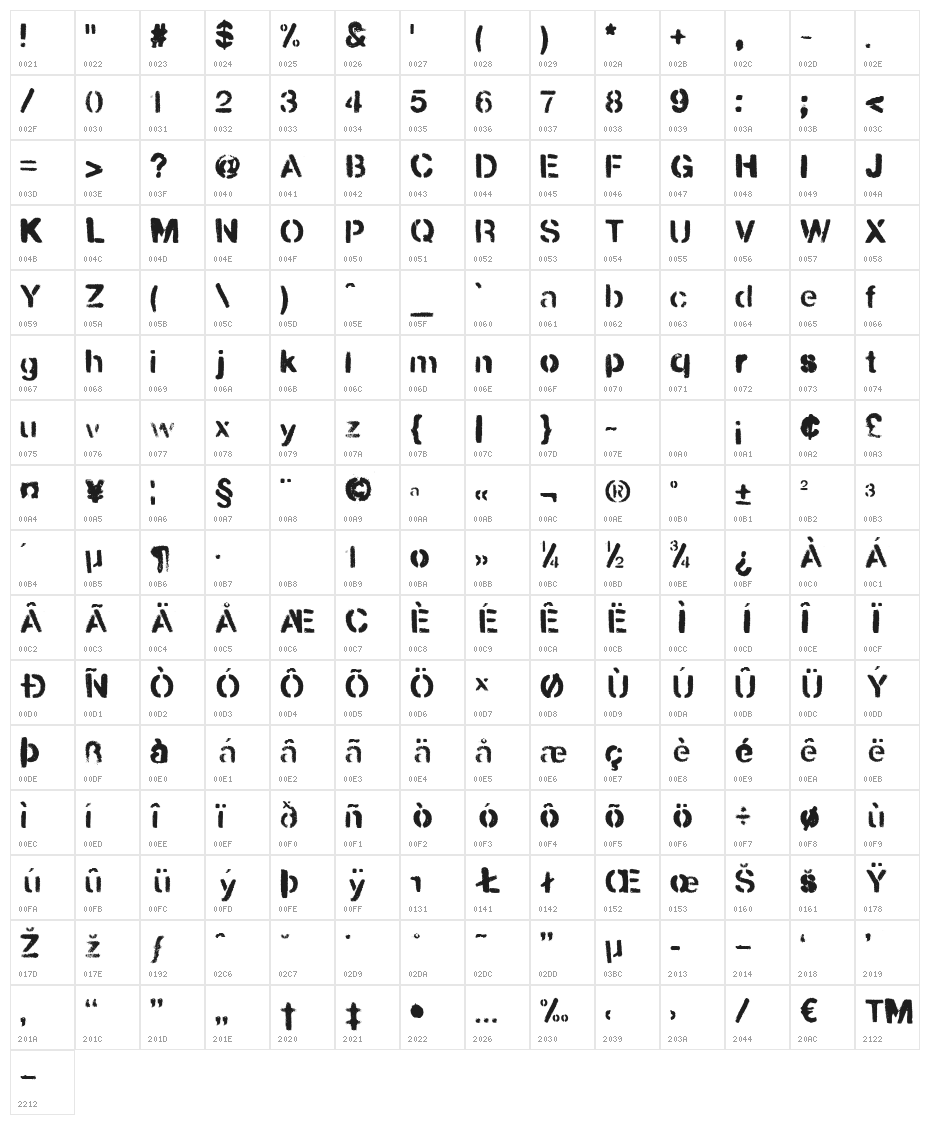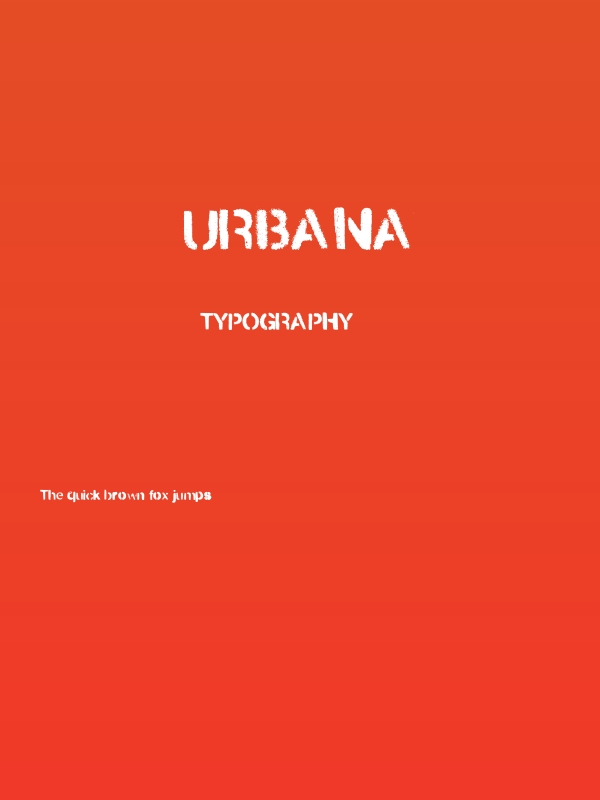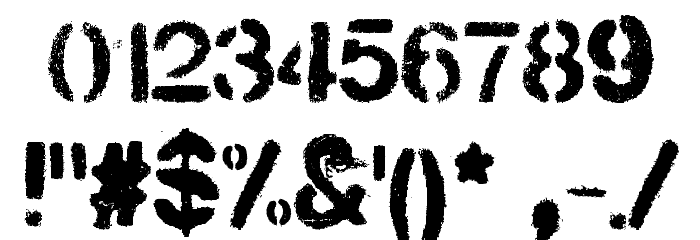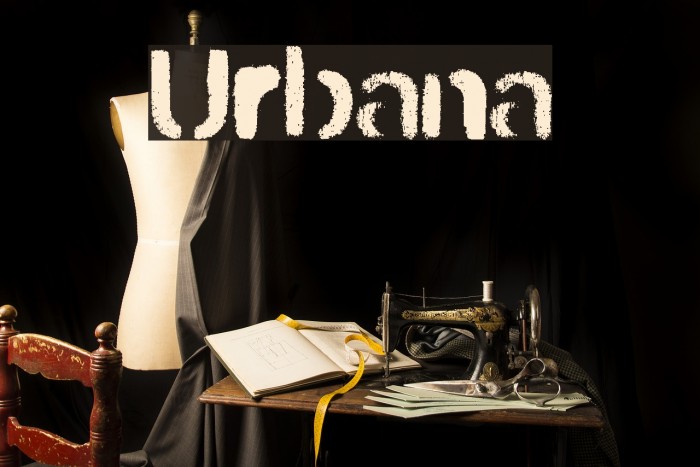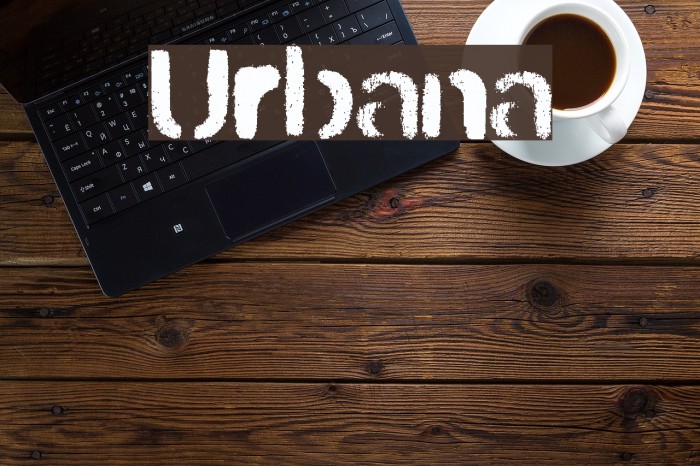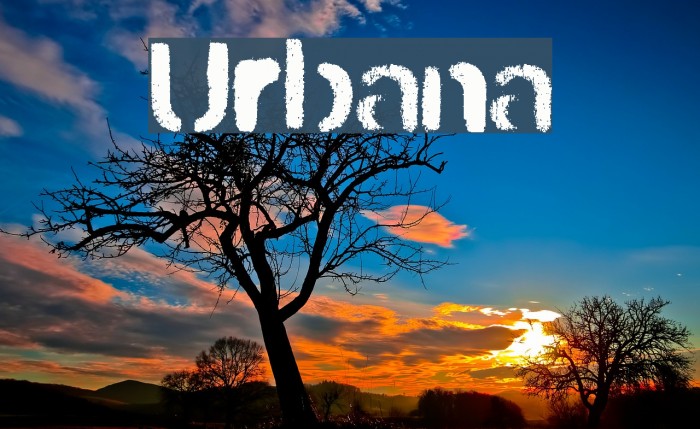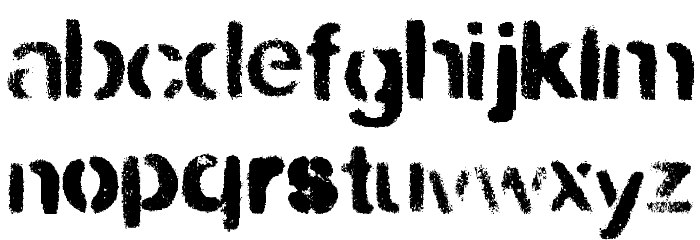
Urbana Font
Urbana Description
This font features a bold, distressed style with a textured appearance that gives it a rugged, urban feel. The characters are bold and impactful, with a rough, uneven texture that suggests a hand-crafted or stenciled look. The uppercase and lowercase letters maintain a consistent weight, providing a strong visual presence. The numerals and special characters follow the same design, ensuring uniformity across all elements. This font is ideal for projects that require a gritty, industrial aesthetic, such as posters, album covers, or branding for edgy, modern businesses.
| Overall Style | Urban, Industrial, Rugged |
| Proposed Projects | Ideal for posters, album covers, and edgy branding projects. |